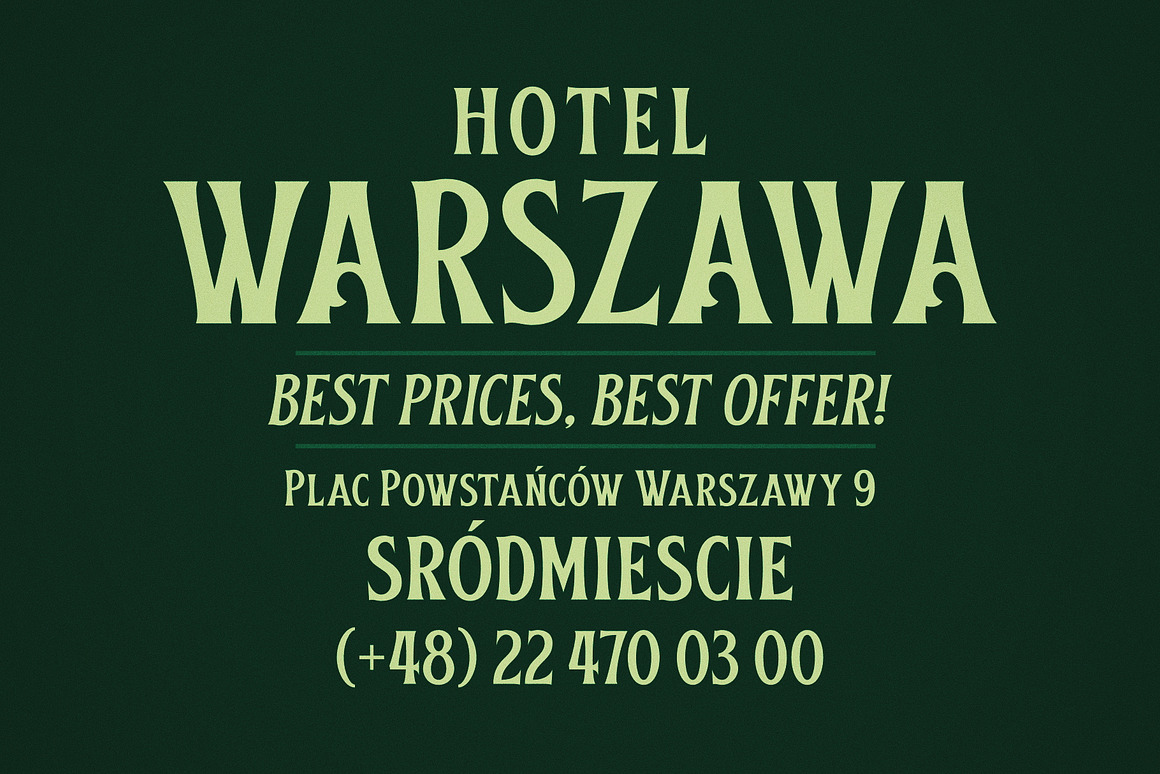
Obsypac | Vintage Serif Font
Obsypac Vintage Serif Font is perfect for book publishing, newspaper headlines, vintage magazine layouts, academic publications, law firm branding, historical documentaries, classic brand revival projects, and sophisticated editorial design.
What makes Obsypac Vintage Serif Font exciting is its timeless elegance that combines traditional serif craftsmanship with distinctive vintage character. The font features carefully balanced letterforms with refined serifs and classic proportions that evoke the golden age of typography and publishing. Its sophisticated stroke contrast and authentic period details create an authoritative presence that communicates credibility, intelligence, and established tradition to discerning readers.
The Obsypac Vintage Serif Font family includes regular weight with uppercase and lowercase letters, numerals, punctuation marks, and comprehensive special characters. Premium versions often feature multiple weights, italics, and stylistic alternates that provide extensive typographic flexibility for complex publishing projects.
This distinguished serif typeface brings instant credibility and scholarly appeal to any text-heavy application. Obsypac Vintage Serif Font Free Download delivers exceptional results for publishers, educational institutions, and professional services that need to communicate authority, tradition, and intellectual sophistication.
The authoritative character of Obsypac Vintage Serif Font makes it particularly valuable for academic publishing, legal documentation, and established brand communications. Its excellent readability at extended lengths ensures comfortable reading experiences while maintaining the distinguished appearance that readers associate with quality content and reliable sources.
Editorial designers and publishing professionals value how Obsypac Vintage Serif Font seamlessly combines classical beauty with contemporary functionality. The font's balanced proportions and refined details create polished publications that establish trust and credibility with educated audiences seeking substantial content.
The versatile sophistication of this typeface extends to consulting firms, financial services, and cultural institutions where professional credibility enhances brand perception. Obsypac Vintage Serif Font Free Download represents an essential resource for designers creating authoritative, knowledge-based communications that resonate with audiences who value expertise, tradition, and the enduring power of well-crafted typography in serious discourse.